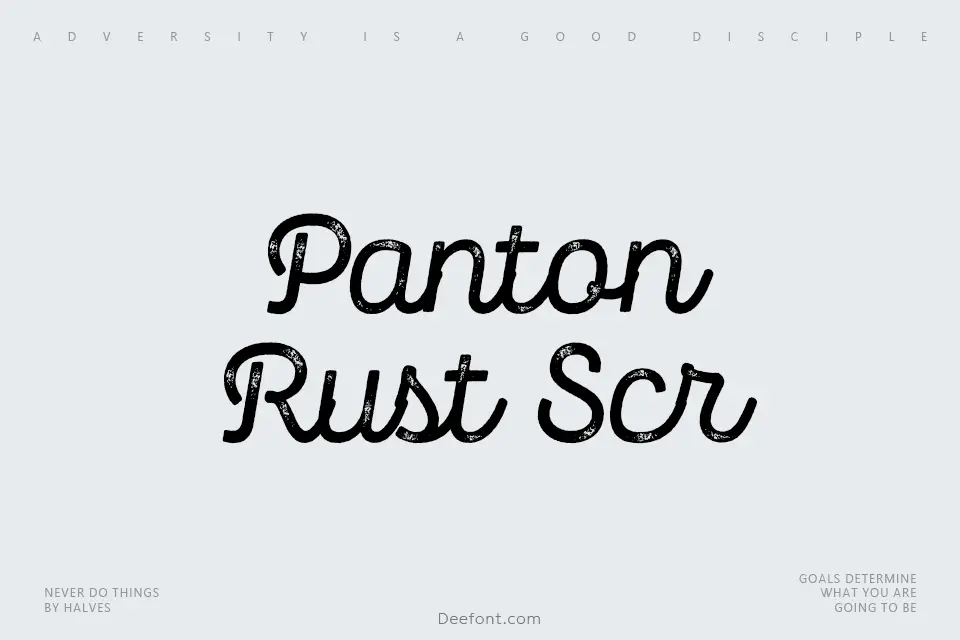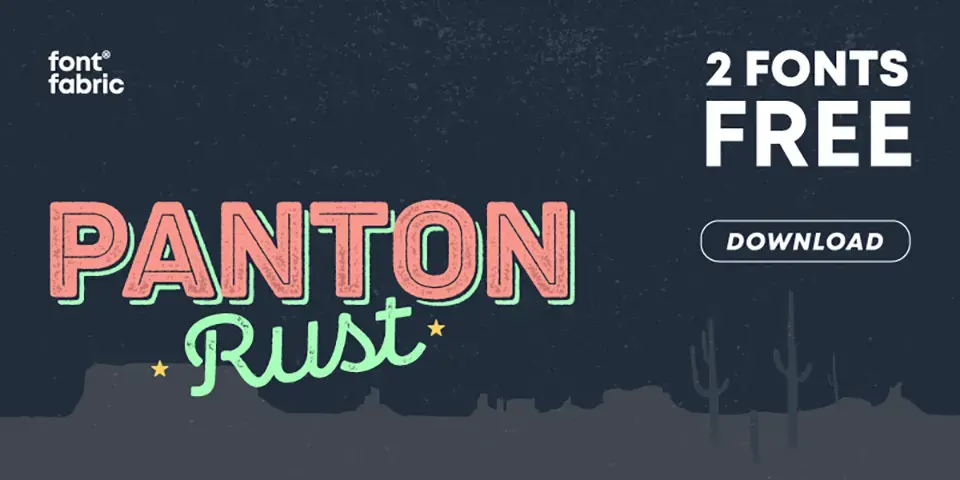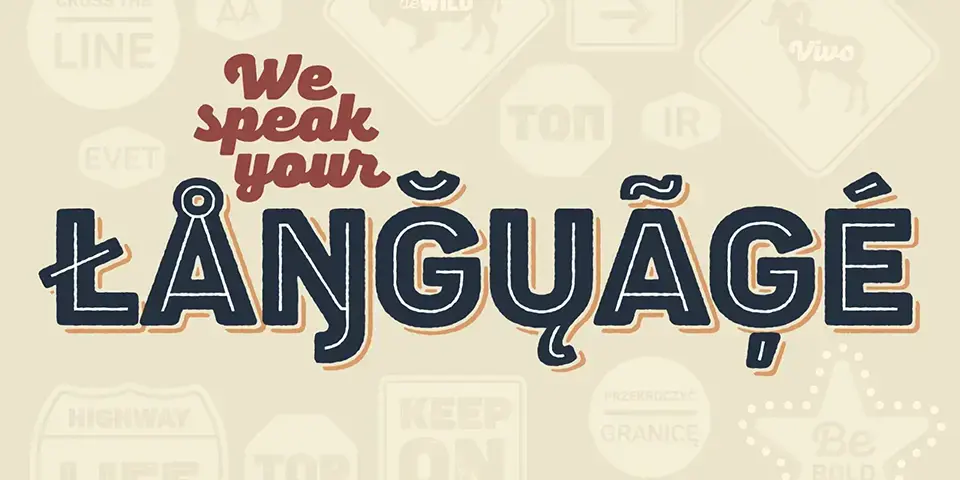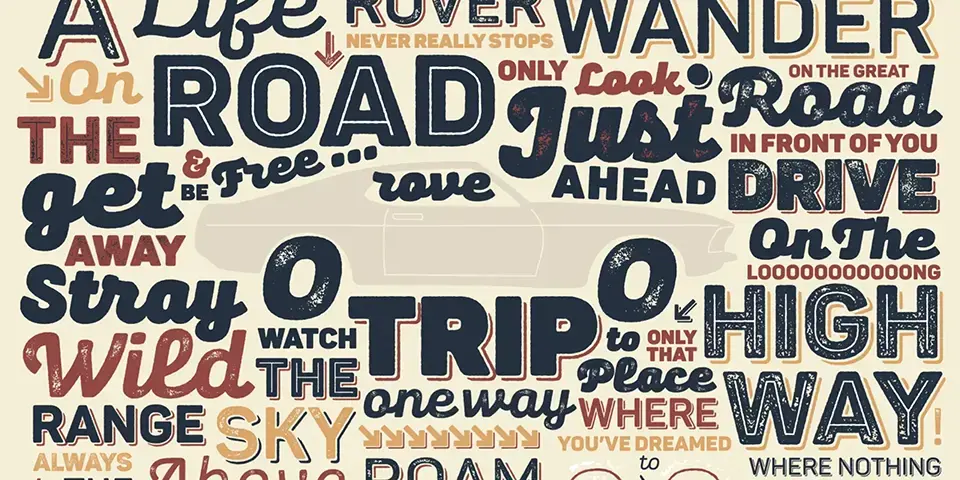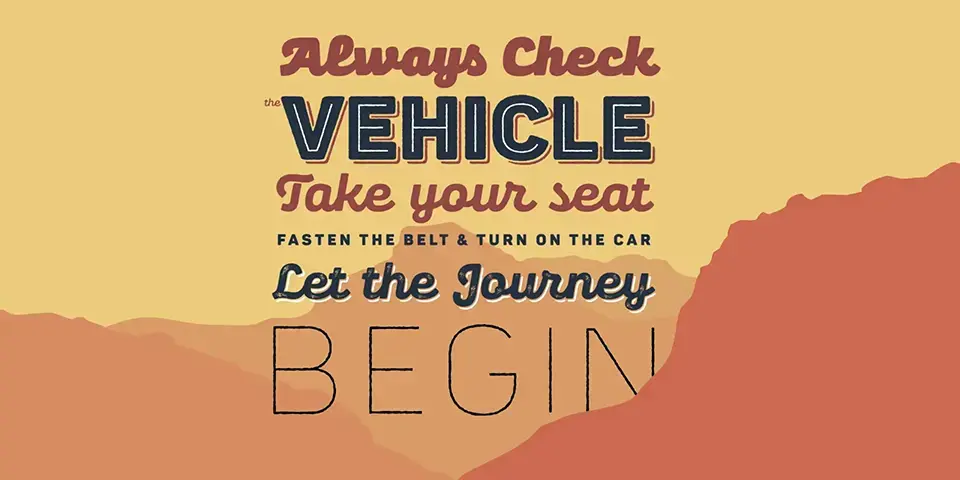
Panton Rust Scr Font
Panton Rust Scr brings a rough, authentic vibe to digital design with its hand-painted aesthetics and distinctive texture. Part of the larger Panton Rust family, this script variant features bold, connected strokes with a weathered grunge effect, making it perfect for vintage logos, artisanal packaging, and eye-catching headlines. Its energetic flow and high-quality detailing ensure it stands out in both print and web projects.